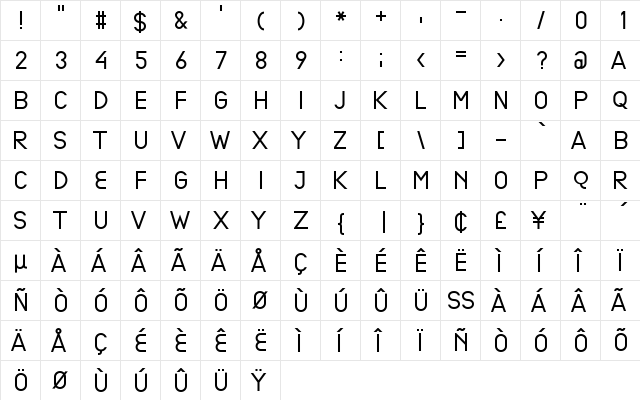
EPF UC
| Foundry | YOFonts |
| Designer | Yamaoka Yasuhiro |
Design Context for EPF Typeface
EPF takes a measured approach to typography — its balanced proportions and neutral character make it a reliable workhorse for both digital and print work.